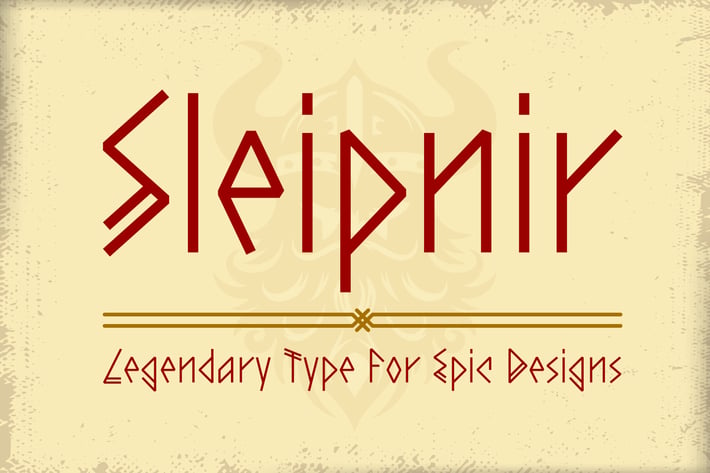
Sleipnir Font
Font Description:
Experience the raw power and elegance of Norse mythology with the Sleipnir font. This dynamic typeface, inspired by Odin's majestic eight-legged steed, is perfect for bold headlines, striking logos, and eye-catching designs. Its unique character shapes and bold strokes make it ideal for creating impactful visuals that demand attention. Download Sleipnir today and elevate your design projects to new heights.
Unique letterforms